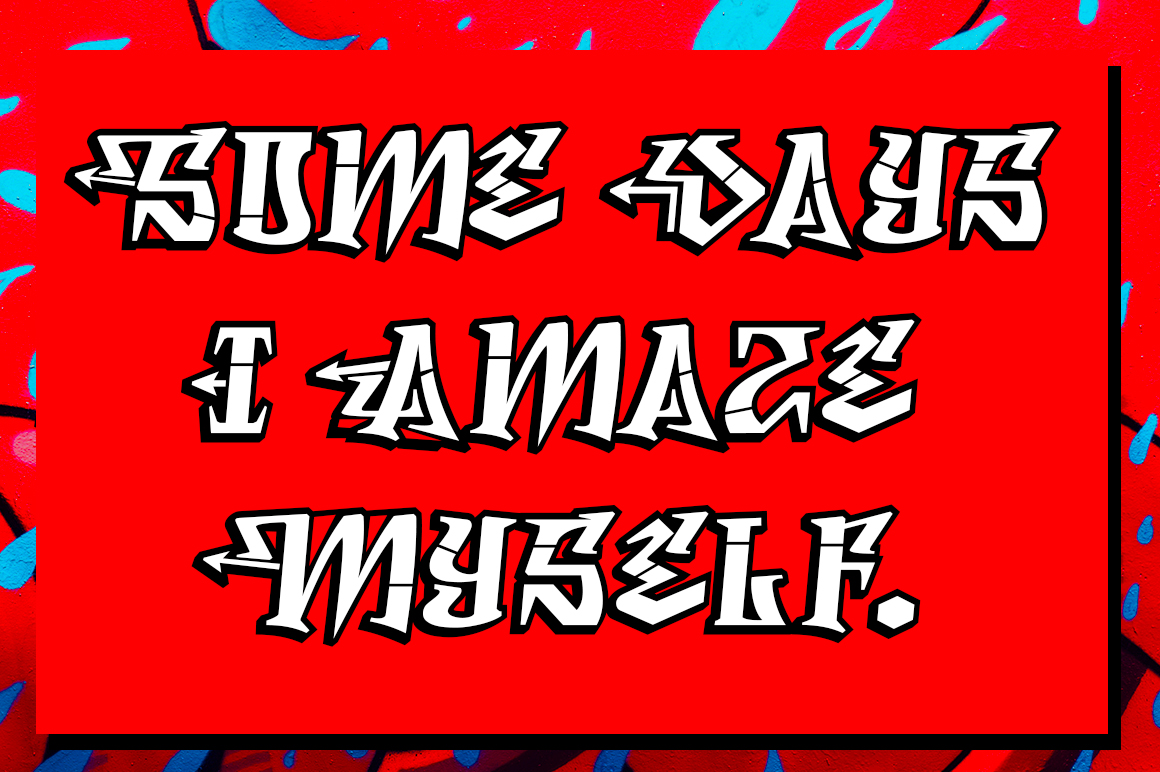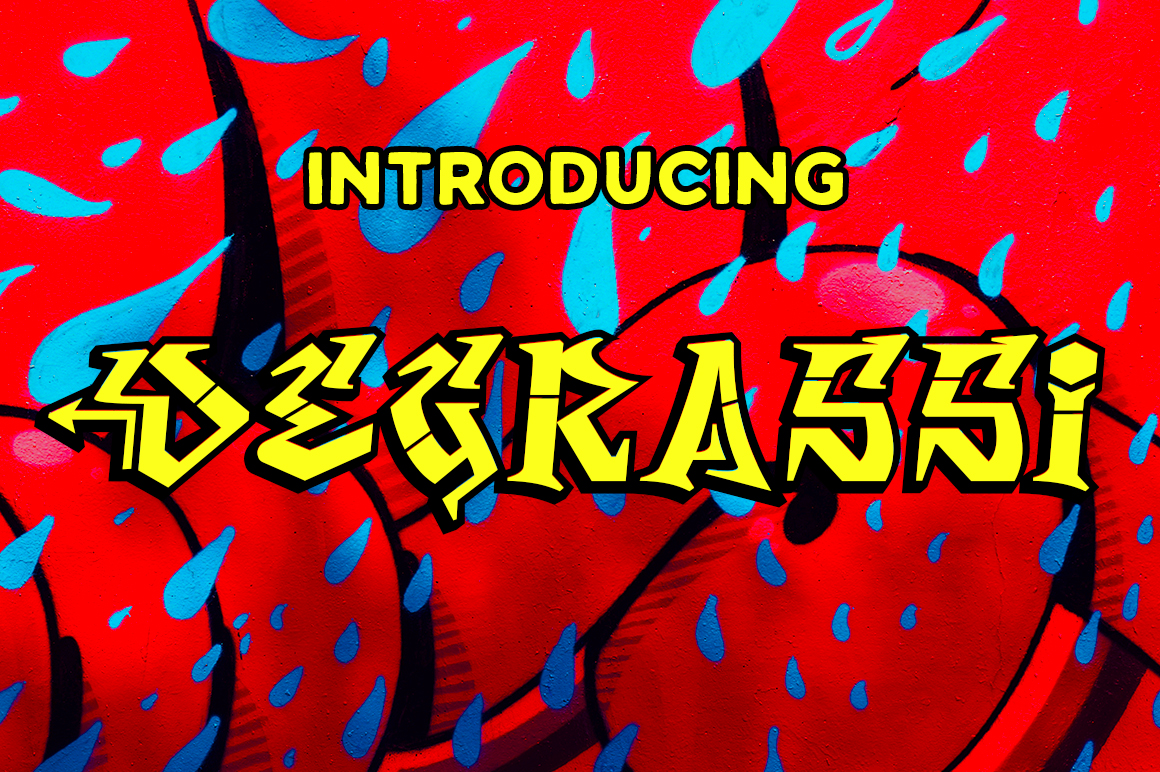
Degrassi is a somewhat wack, graffiti-inspired font. This free decorative font from Typodermic is a great way to give your designs an inspired, grungy feel.